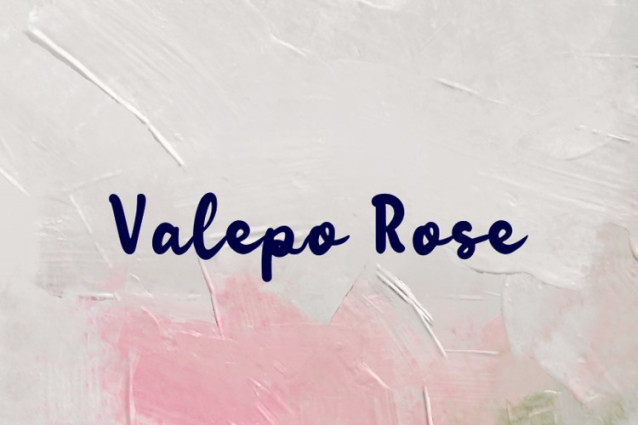
Valepo Rose Font
Valepo Rose Font is a simple and friendly handwritten font. Its natural and unique style makes it incredibly fitting to a large pool of designs. The only limit is your imagination!